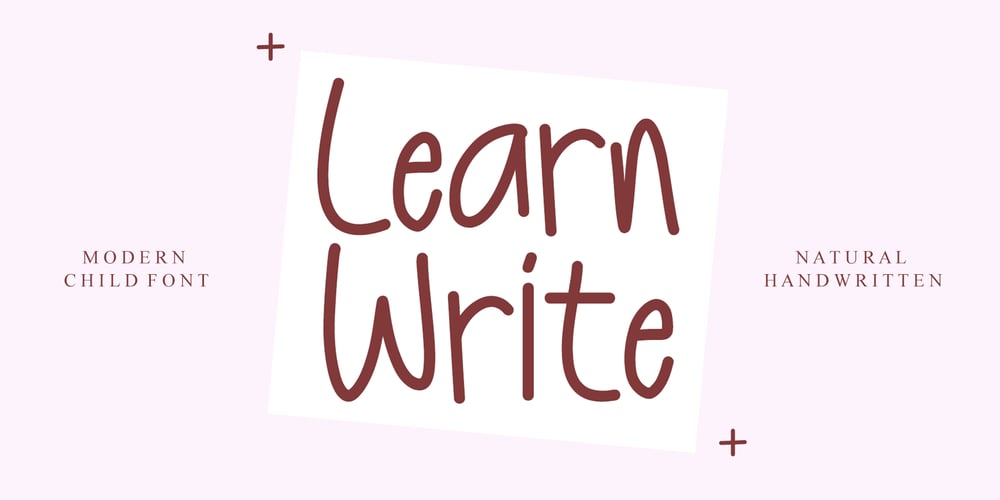
Learn Write
Learn Write font
Learn Write Font Family was designed by Ahmad Afandi and published by Letterafandi Studio. Learn Write contains 1 styles and family package options. Learn Write is a playful handwritten font. Whether you’re using it for crafts, digital design, presentations, or making greeting cards, this font has the potential to become your favorite go-to font, no matter the occasion!